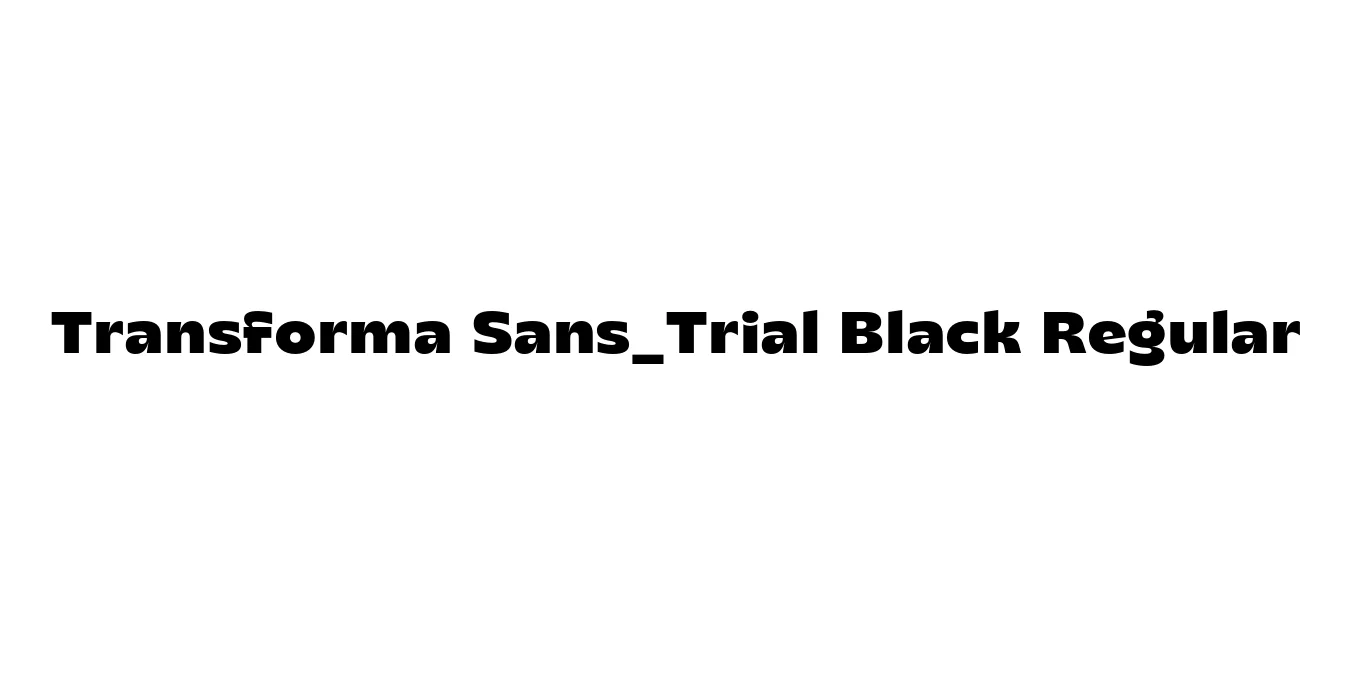
Transforma Sans_Trial Black Regular
Designed by Zetafonts (Francesco Canovaro, Cosimo Lorenzo Pancini, Andrea Tartarelli)
Transforma Sans is a highly versatile and contemporary typeface family developed by the renowned Italian foundry Zetafonts. It serves as a core component of the Transforma superfamily, a project that explores the concept of modularity and structural evolution in modern typography. The Black Regular weight is specifically engineered to provide a commanding visual presence, offering a heavy, impactful stroke that retains exceptional clarity and balance, making it a standout choice for high-stakes design environments.
Designed with a focus on geometric precision and clean lines, Transforma Sans Black Regular bridges the gap between technical functionality and aesthetic elegance. Its open apertures and carefully adjusted proportions ensure that the typeface remains legible and professional, whether used in large-scale display applications or as bold accents in complex editorial layouts. This trial version allows designers to experience the font's robust personality and its ability to anchor any visual identity system with strength and modern flair.
Ideal for creating powerful, authoritative corporate identities and logos.
Perfect for high-impact titles in posters, magazines, and digital banners.
Excellent for grabby marketing materials and outdoor signage where visibility is key.
Great for hero sections and bold UI elements that require a modern look.